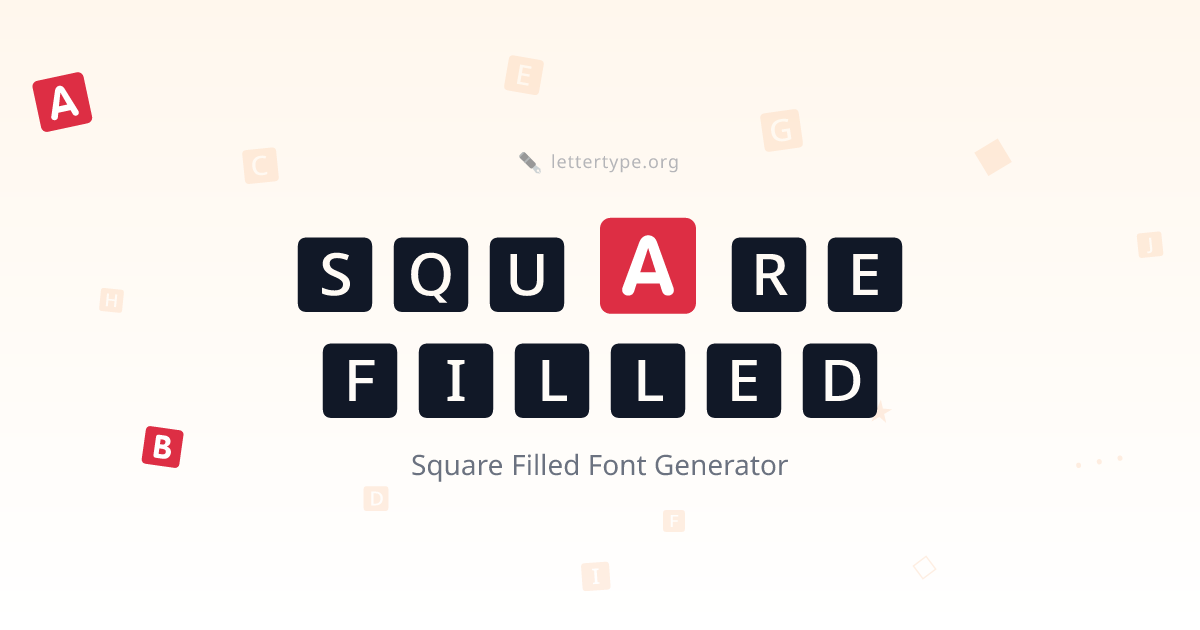
Square Filled Font Generator
Generate filled square Unicode text with solid black box letters. Free bold square font for Instagram, Discord, and high-contrast aesthetic profiles.
Square Filled Font Generator — 🅰🅱🅲 Bold Square Text
Square filled font combines the geometric structure of squared letters with solid filled backgrounds — creating maximum visual contrast and an unmistakably bold, graphic presence. Each letter appears white on a solid square, making this style one of the most visually striking Unicode fonts available.
🅴🆅🅴🆁🆈🆃🅷🅸🅽🅶 🅸🅽 🆂🅾🅻🅸🅳 🆂🆀🆄🅰🆁🅴🆂.
What Is Square Filled Font?
Square filled characters come from the Enclosed Alphanumeric Supplement block (U+1F170–U+1F189). These negative squared letters feature white text on solid square backgrounds — the inverse of the outline square style.
The filled squares create a typeface that feels like buttons, labels, or bold graphic design elements — structured and bold in equal measure.
Square Filled Alphabet
🅰 🅱 🅲 🅳 🅴 🅵 🅶 🅷 🅸 🅹 🅺 🅻 🅼 🅽 🅾 🅿 🆀 🆁 🆂 🆃 🆄 🆅 🆆 🆇 🆈 🆉
Where to Use Square Filled Text
Instagram bios — filled square letters create an intensely graphic, high-contrast profile aesthetic.
Discord usernames — bold square names are immediately visible and distinct in any server.
Gaming profiles and tags — the bold, button-like appearance of filled squares is a natural fit for gaming handles and streamer names.
Announcements and emphasis — use filled square text for words you absolutely need people to notice.
Streetwear and graphic design profiles — filled squares mirror the aesthetic of rubber stamp prints, bold graphic design, and streetwear label typography.
Twitter and social media posts — drop filled square text into posts to make key terms visually pop.
Square Filled vs Square Outline
StyleExampleBest For
Square Outline🄰🄱🄲Minimal, refined, architectural
Square Filled🅰🅱🅲Bold, graphic, high-impact
Both share the same geometric structure. Filled squares add visual weight and contrast that makes them feel more like bold graphic design elements — stamps, labels, or buttons — while outline squares feel more typographic and refined.
Square Filled Font — FAQ
Is square filled the same as block letters?
Not exactly. Block letters traditionally refer to hand-drawn or typeset letter styles with uniform stroke width. Square filled Unicode characters are a specific set of negative-on-solid-square letters from the Enclosed Alphanumeric Supplement block (U+1F170–U+1F189). The visual effect is similar — solid, graphic, high-contrast — but the source is Unicode, not a font file.
Do filled square characters work on TikTok?
Yes. TikTok bios and display names support Unicode filled square characters. They display correctly on iOS and Android.
How do filled squares compare to filled bubbles?
Both are "negative" letter styles — white letter on solid background. Filled bubbles (🅐) use circular backgrounds for a round, playful feel. Filled squares (🅰) use square backgrounds for a more structured, graphic appearance. The choice depends on whether you want playful (bubble) or bold/architectural (square).